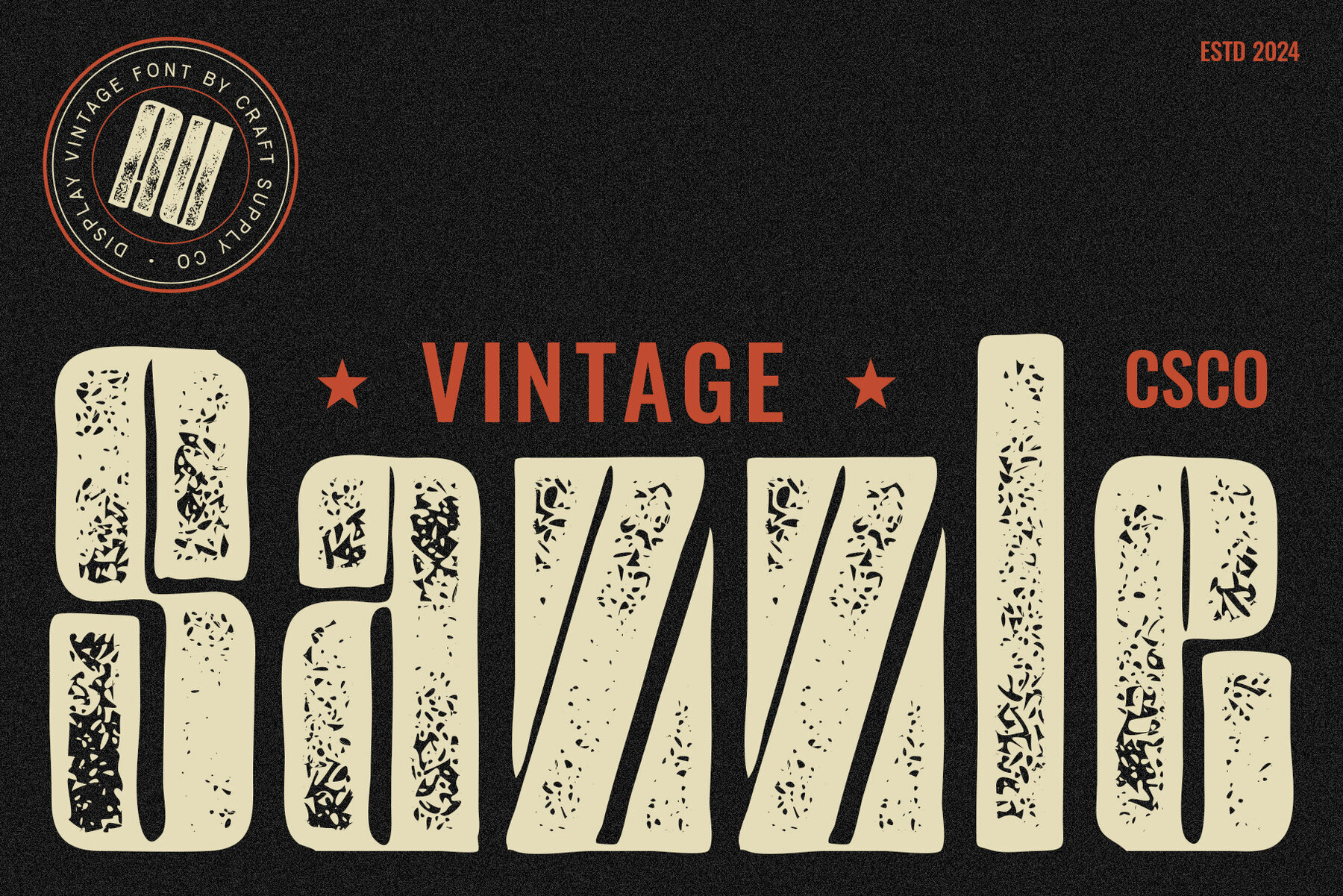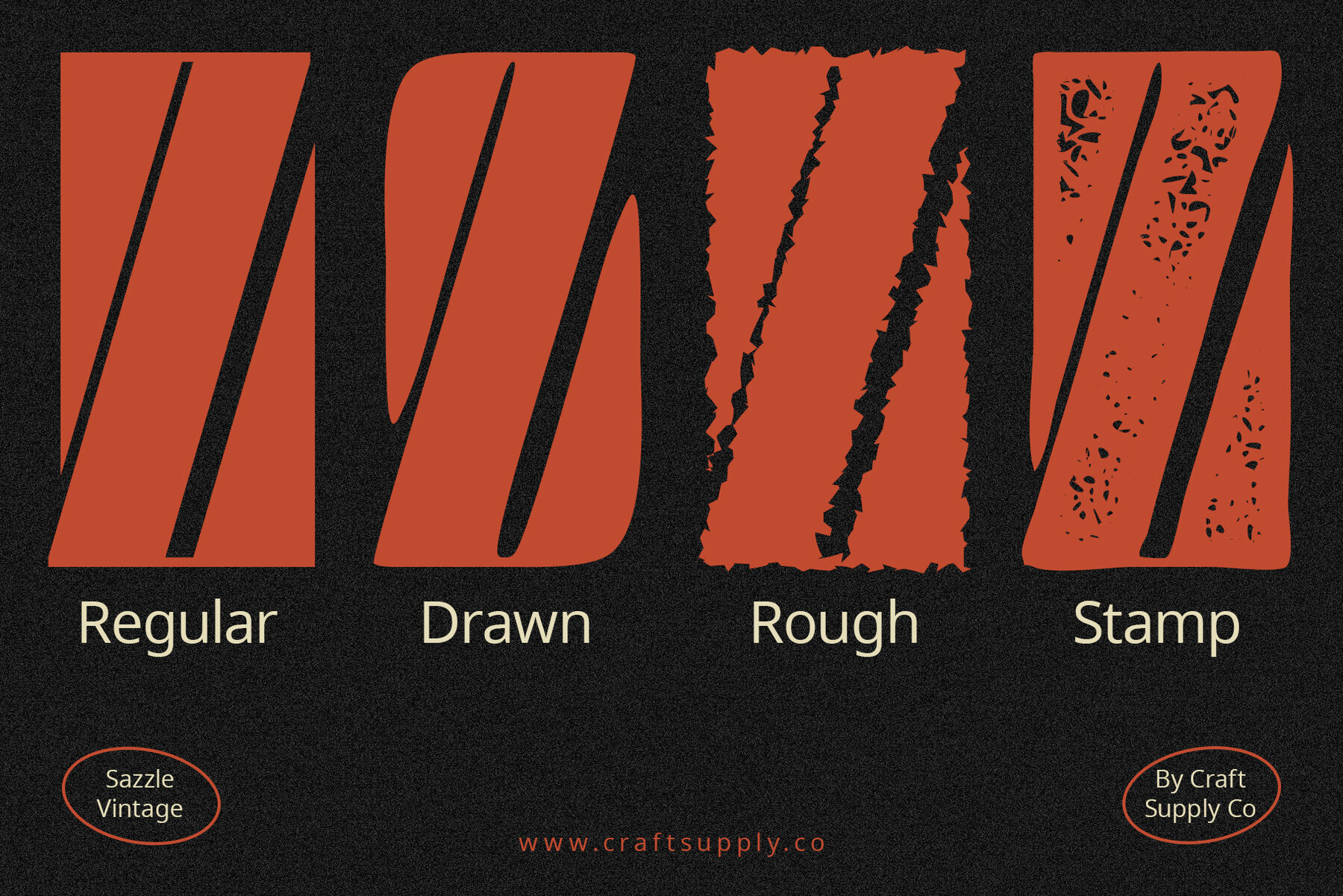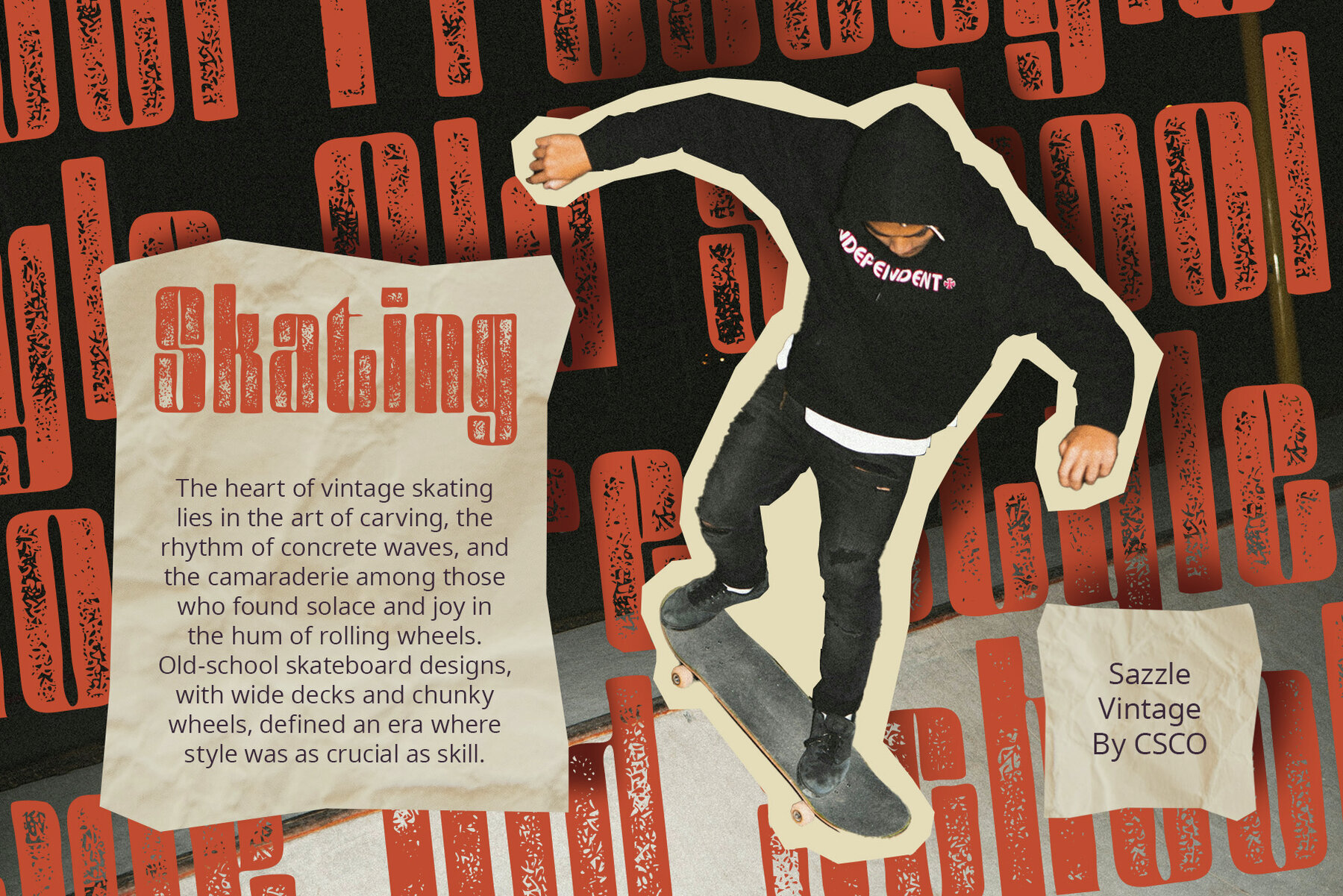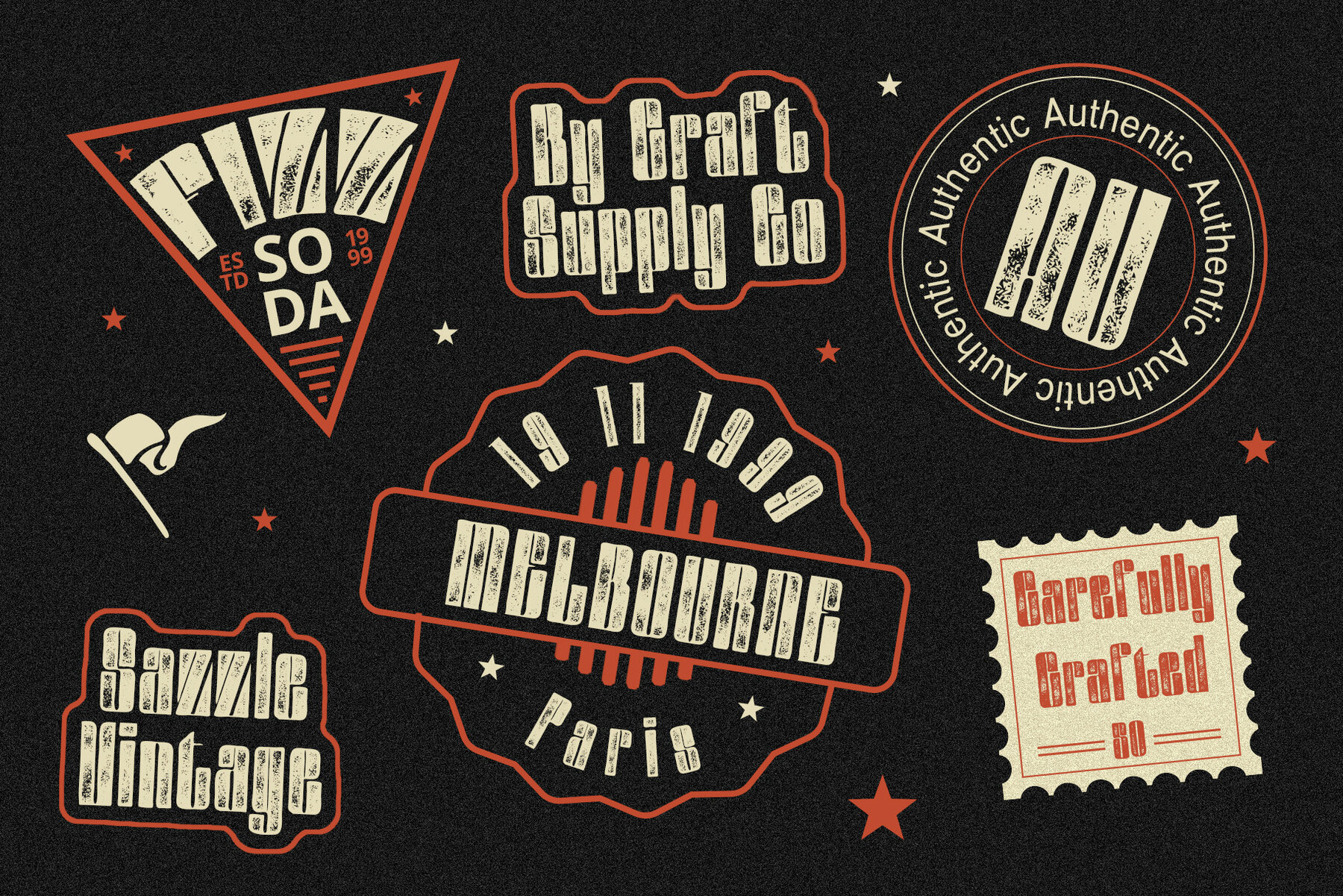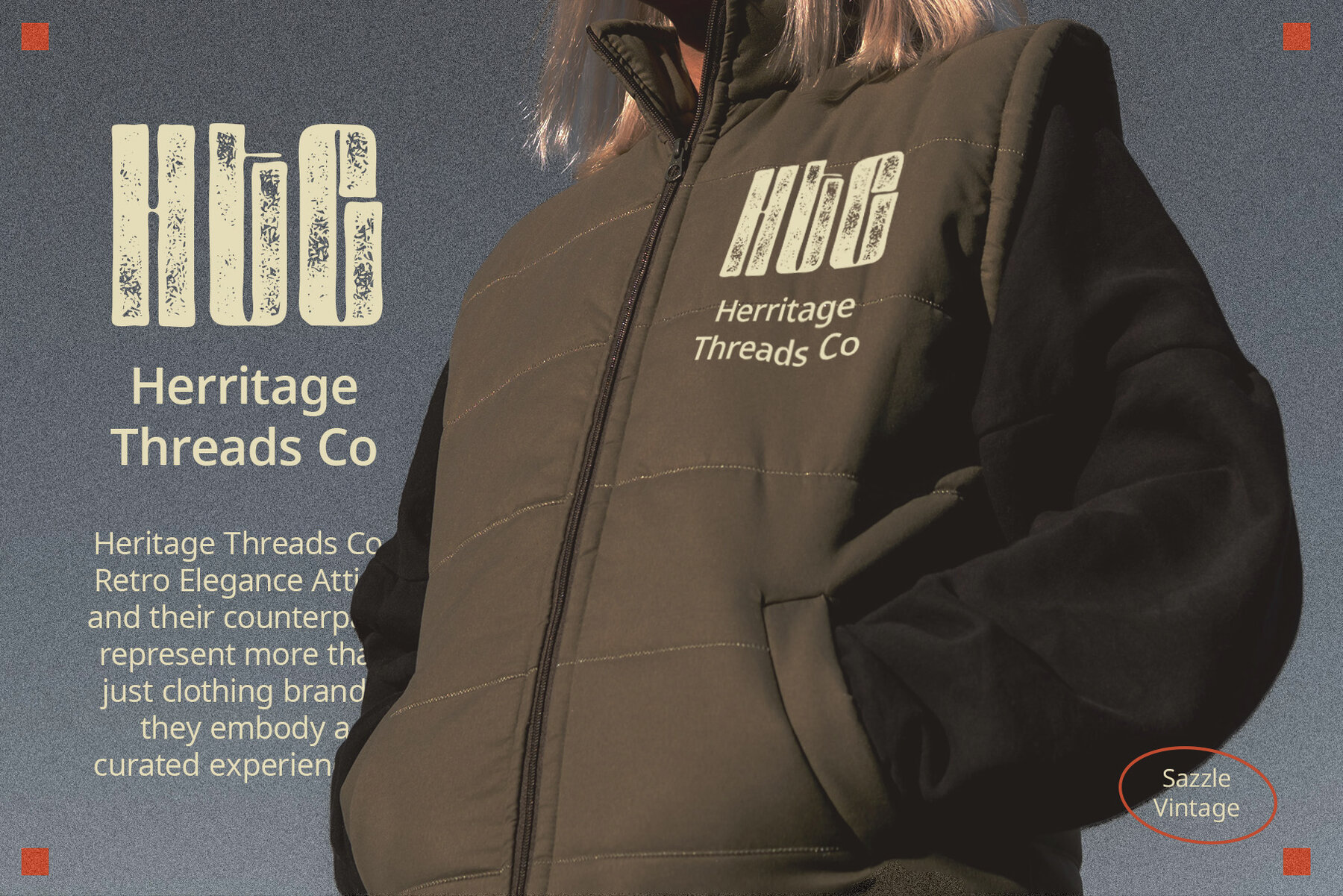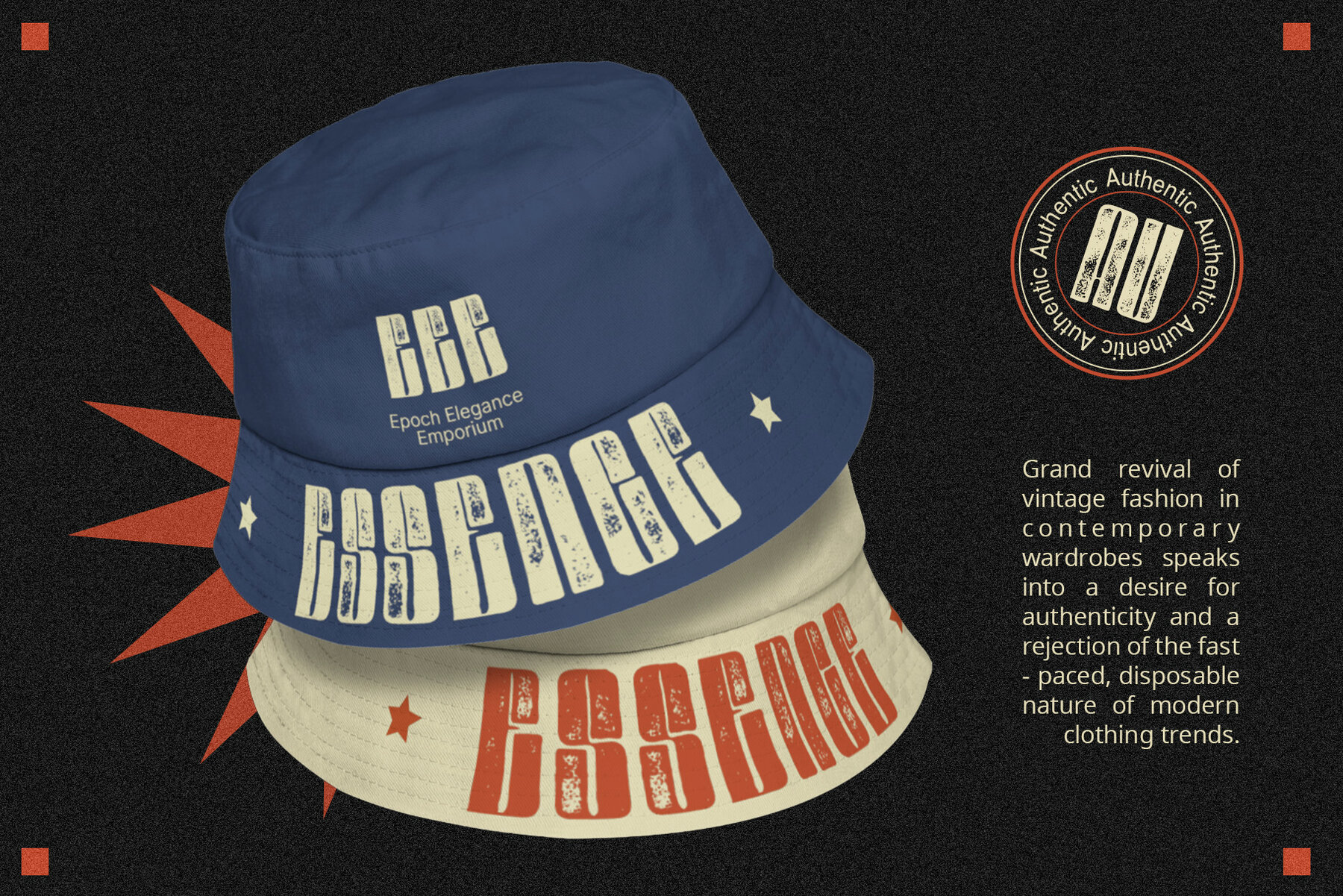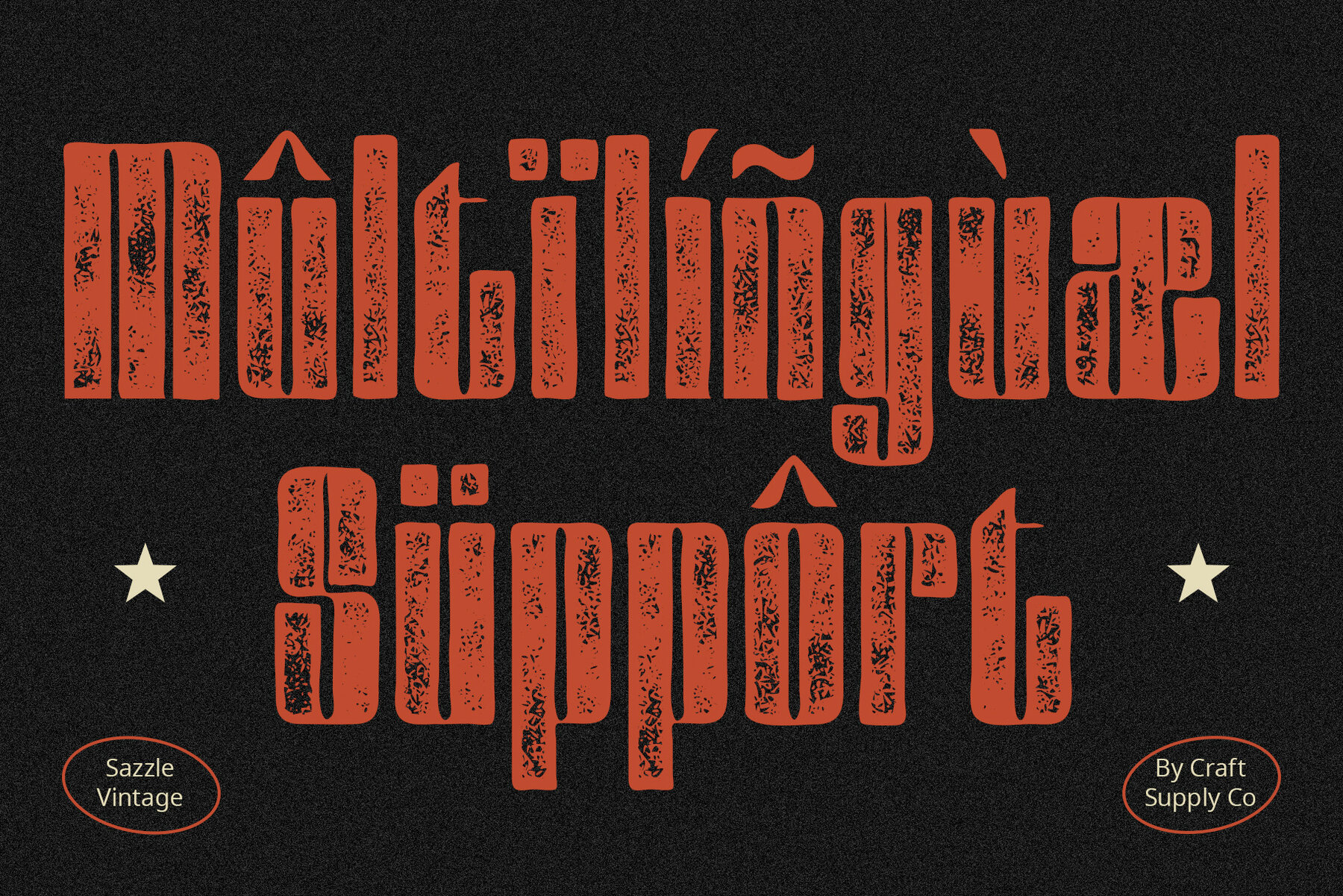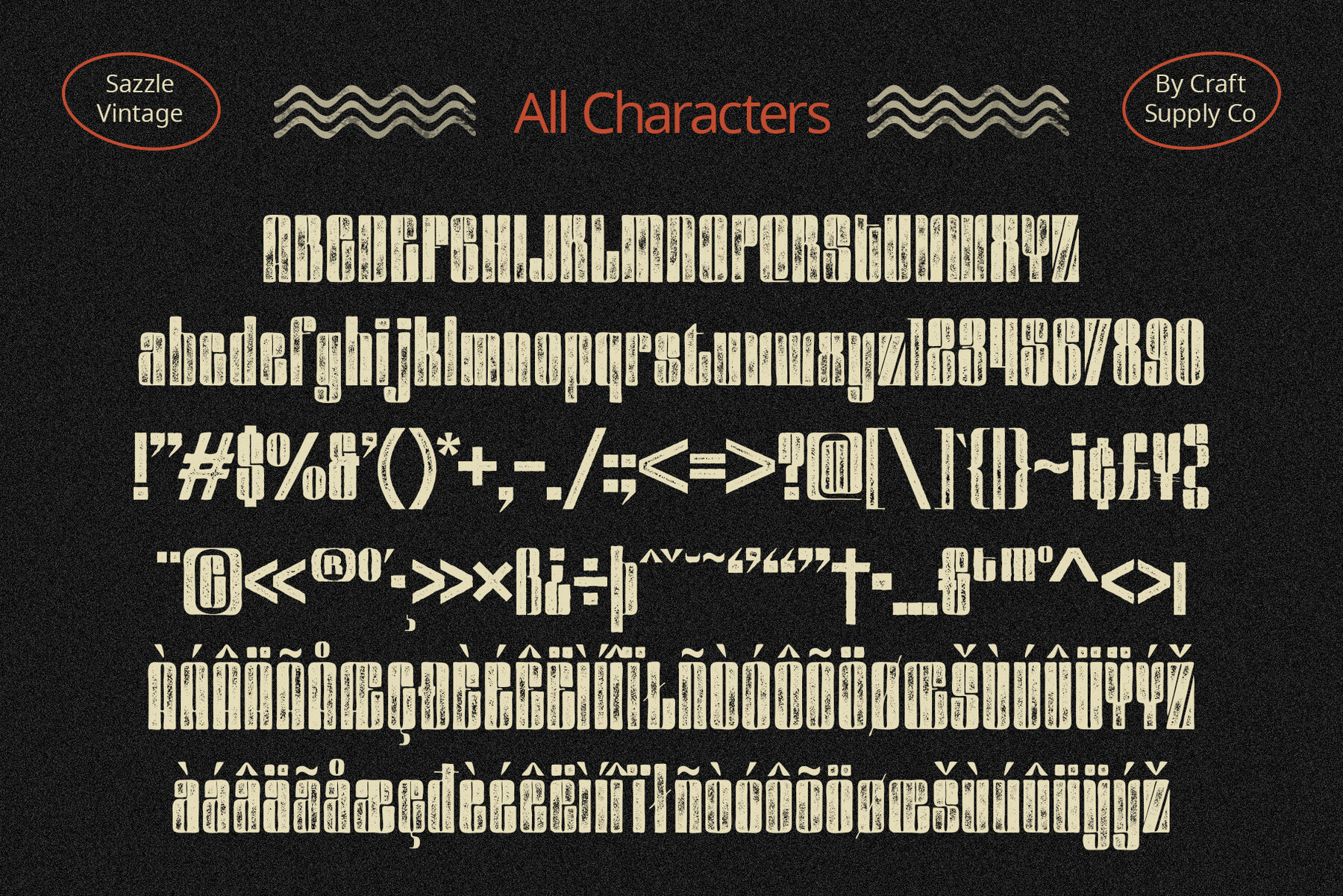
Sazzle Vintage Font
Step into a world where design meets distinction with Sazzle Vintage, a font that doesn’t just speak but roars. Crafted for those who crave attention, it boldly diverges from the ordinary, immersing your projects in a nostalgic embrace.
Sazzle Vintage makes an unapologetic entrance with its thick, high-contrast strokes. Every character demands attention, turning your design into an attention-grabbing spectacle.
In a departure from conventional typography, Sazzle Vintage embraces minimal white space. The result? A compact layout that captivates the viewer and redefines the norms of spacing.
Transport your audience to an era of timeless charm. Sazzle Vintage effortlessly blends modern needs with vintage effects, adding a touch of retro sophistication to every character.
Sazzle Vintage isn’t confined to a specific era; it’s a chameleon in the design world. From posters to packaging, it seamlessly integrates into any project, offering an unmistakable character.
Sazzle Vintage isn’t just a font; it’s a visual journey. Its bold strokes, vintage allure, and adaptability make it a must-have for designers seeking a timeless, high-contrast display. Elevate your projects with Sazzle Vintage and let every design tell a story.